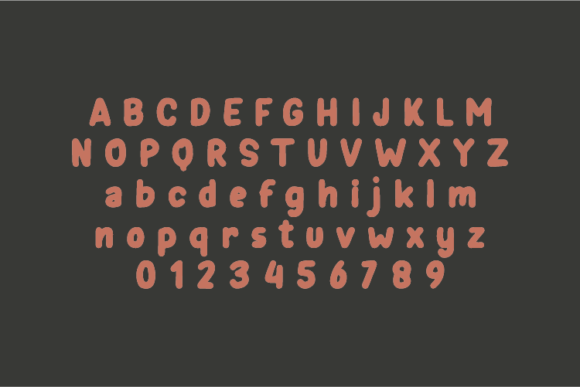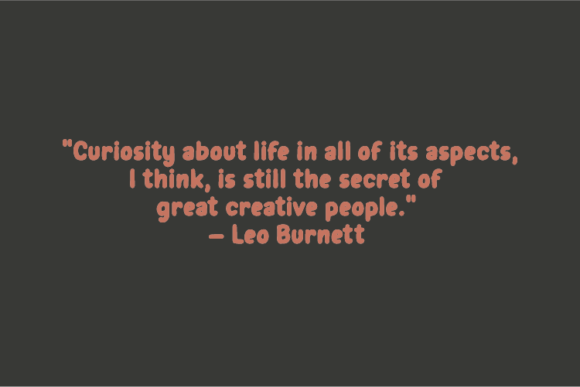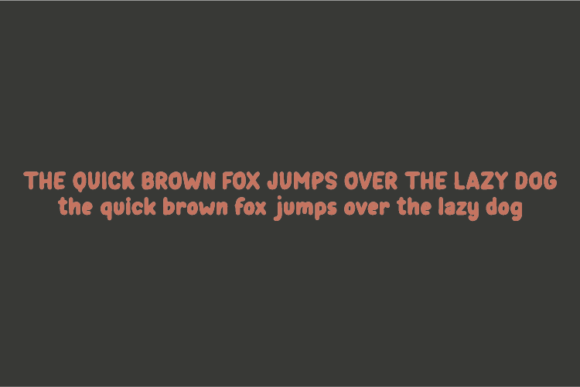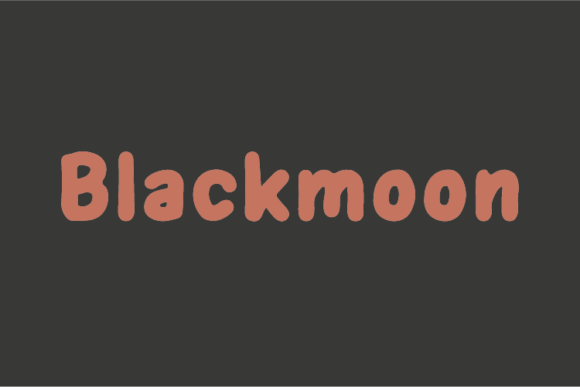
Introducing Blackmoon Font: Elevate Your Designs with a Natural and Neat Handwritten Style
Are you tired of using the same old fonts in your designs? Look no further than Blackmoon Font, a beautiful and versatile handwritten font that’s perfect for adding a personal touch to your creations. With its natural and neat style, Blackmoon Font is sure to become an essential asset in your font library.
The Characteristics of Blackmoon Font
Blackmoon Font is a carefully crafted handwritten font that exudes a sense of elegance and sophistication. Its natural and neat style makes it perfect for a wide range of design applications, from branding and advertising to packaging and digital media. The font’s unique characteristics include:
• Natural and handwritten feel: Blackmoon Font has a warm and organic feel that’s reminiscent of handwritten text.
• Neat and legible: Despite its handwritten nature, Blackmoon Font is remarkably legible, making it perfect for body text and headlines.
• Versatile: Blackmoon Font can be used for a wide range of design applications, from formal and professional to casual and creative.
The Benefits of Using Blackmoon Font
So why should you choose Blackmoon Font for your designs? Here are just a few benefits of using this amazing font:
• Add a personal touch: Blackmoon Font’s handwritten style adds a personal and human touch to your designs, setting them apart from the standard sans-serif fonts.
• Elevate your brand: With its elegant and sophisticated style, Blackmoon Font can help elevate your brand and give it a more premium feel.
• Increase legibility: Blackmoon Font’s neat and legible style makes it perfect for body text, ensuring that your message is communicated clearly and effectively.
How to Use Blackmoon Font in Your Designs
Using Blackmoon Font in your designs is easy. Here are a few tips to get you started:
• Pair it with other fonts: Blackmoon Font pairs well with a range of other fonts, from sans-serif fonts like Arial and Helvetica to serif fonts like Georgia and Times New Roman.
• Experiment with font sizes: Blackmoon Font looks great at a range of font sizes, from large headlines to smaller body text.
• Use it for branding and advertising: Blackmoon Font’s elegant and sophisticated style makes it perfect for branding and advertising applications, such as logos, taglines, and print ads.
Who is Blackmoon Font for?
Blackmoon Font is perfect for designers, crafters, and anyone looking to add a personal touch to their creations. Whether you’re a:
• Graphic designer: Looking for a unique and versatile font to add to your library.
• Crafter: Creating handmade products and looking for a font to match your brand.
• Small business owner: Looking for a font to elevate your brand and give it a more premium feel.
Author Hanna Bie
In conclusion, Blackmoon Font is a natural and neat handwritten font that’s perfect for adding a personal touch to your designs. With its elegant and sophisticated style, Blackmoon Font is sure to become an essential asset in your font library. Whether you’re a designer, crafter, or small business owner, Blackmoon Font is the perfect choice for anyone looking to elevate their creations and give them a more premium feel.